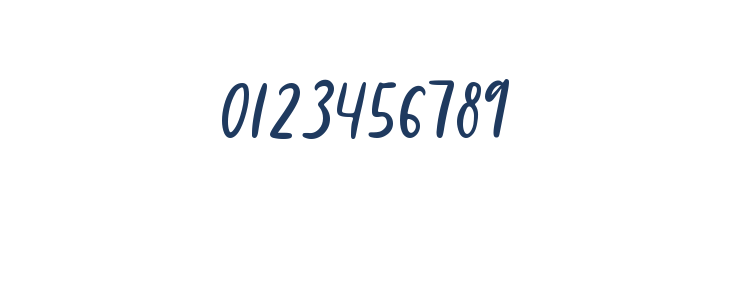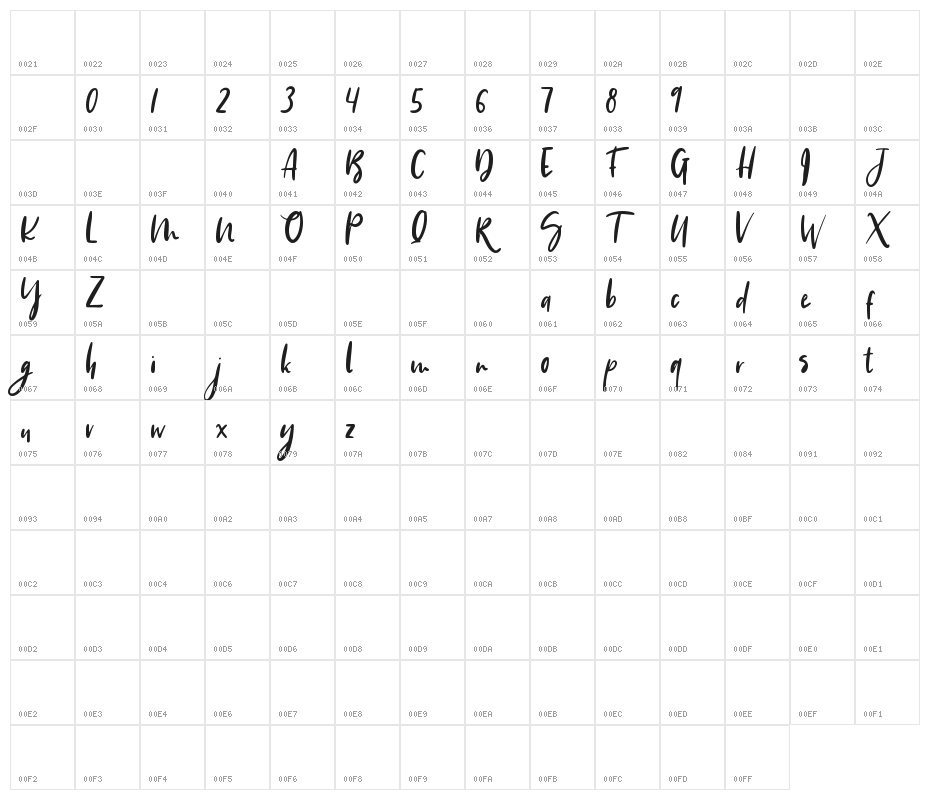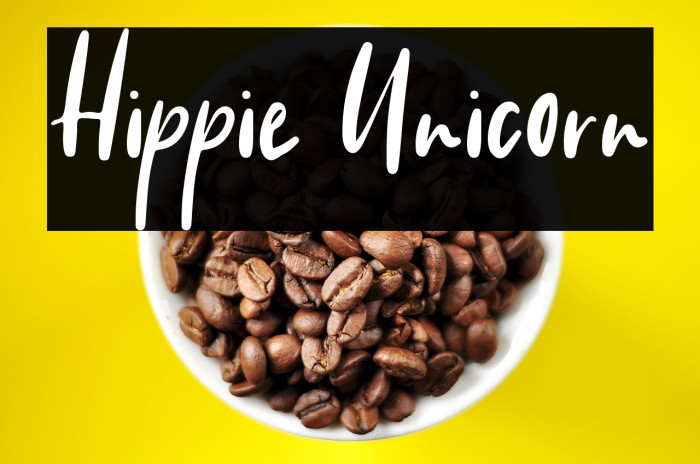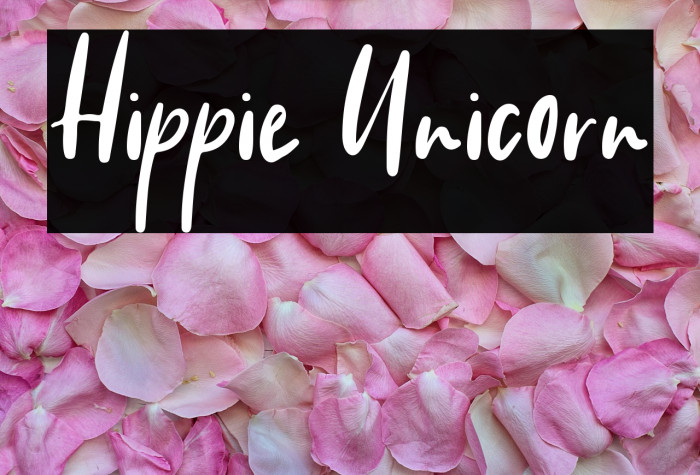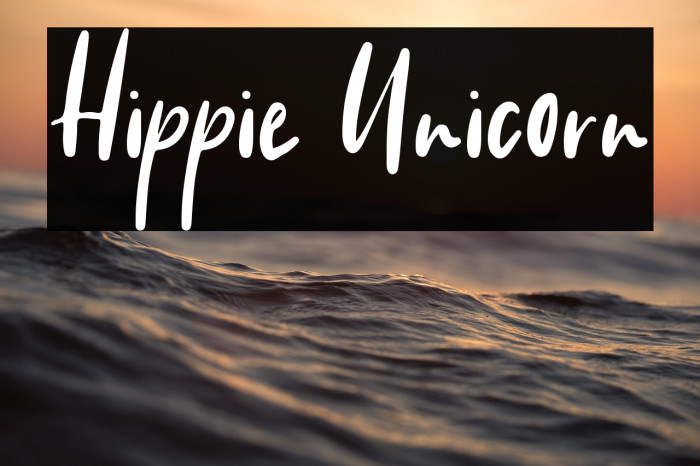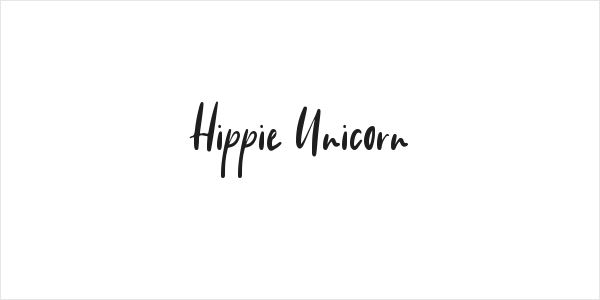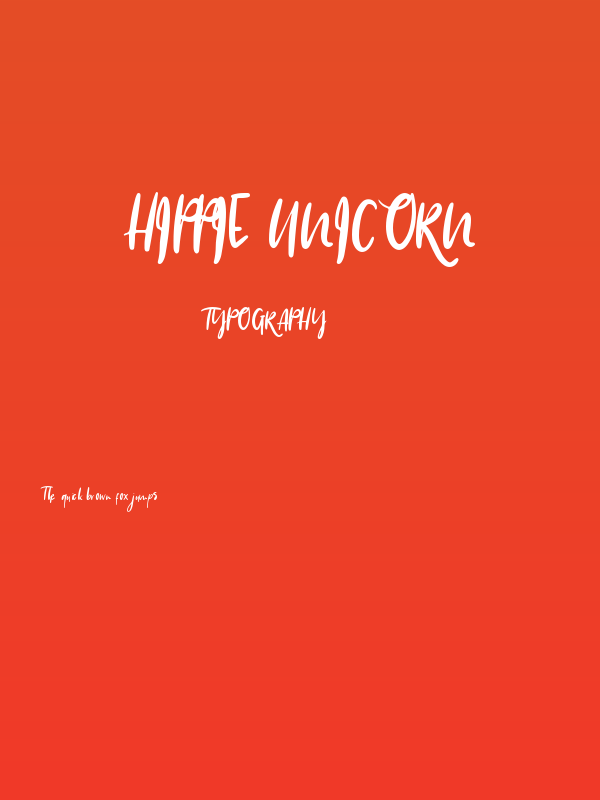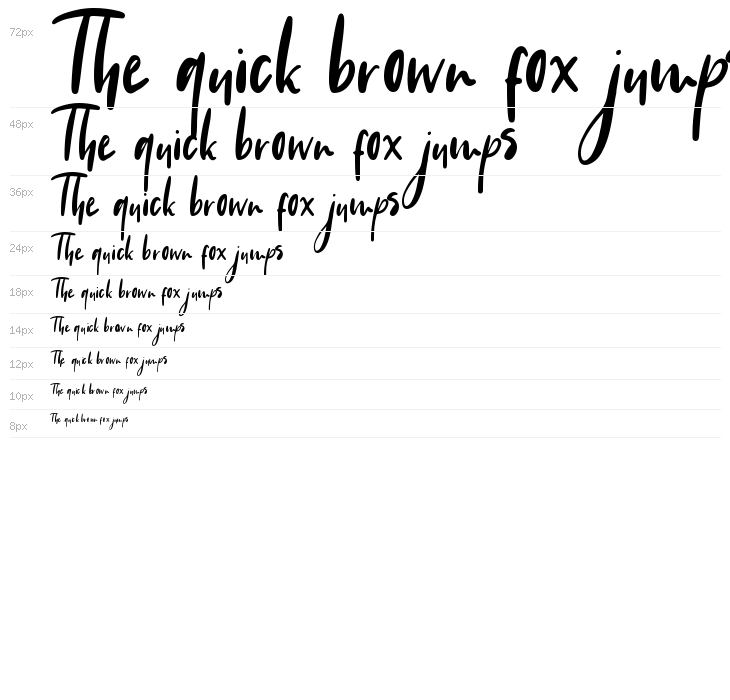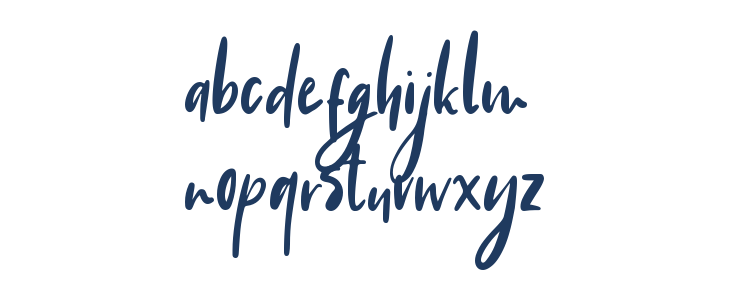
Hippie Unicorn Font
Hippie Unicorn Description
This font exudes a playful and whimsical charm, characterized by its flowing, handwritten style. The letters are crafted with a casual flair, featuring smooth curves and varying stroke widths that give it a dynamic and lively appearance. The uppercase letters are bold and expressive, while the lowercase letters maintain a consistent rhythm, adding to the font's overall harmony. The numbers and special characters are equally engaging, maintaining the font's unique personality. This font is perfect for projects that require a touch of creativity and fun.
Use CaseLogos, Headlines, Creative projects
Proposed ProjectsIdeal for greeting cards, playful branding, children's books, and creative posters.